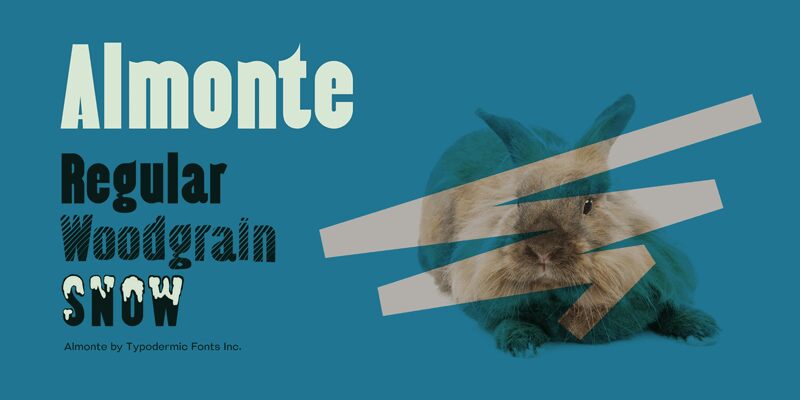
Almonte Snow, a captivating display font crafted by Typodermic Fonts, exudes a striking boldness and undeniable presence. This condensed, decorative typeface embodies a visually arresting fusion of sharp angles and organic fluidity, creating a sense of raw, untamed power. The stark black-and-white contrast amplifies its dramatic flair, lending itself to bold, attention-grabbing designs.
Almonte Snow's unique aesthetic makes it a versatile choice for a wide range of creative applications, from steampunk-inspired projects to gritty, industrialized branding. Its robust, condensed structure lends itself particularly well to headlines, titling, and impactful typographic compositions, where its commanding presence can truly shine.
Almonte is available in standard, woodgrain, and snow finishes. Some Latin-based European writing systems are supported, including the following languages. Afaan Oromo, Afar, Afrikaans, Albanian, Alsatian, Aymara, Basque, Bemba, Bikol, Breton, Cape Verdean, Creole, Catalan, Cebuano, Chamorro, Chavacano, Danish, Dawan, Dholuo, Dutch, English, Estonian, Faroese, Fijian, Filipino, Finnish, French, Frisian, Friulian, Galician, Genoese, German, Guadeloupean Creole, Haitian Creole, Hiligaynon, Icelandic, Ilocano, Indonesian, Irish, Italian, Jamaican, Kaqchikel, Kikongo, Kinyarwanda, Kirundi, Lombard, Low Saxon, Luxembourgish, Makhuwa, Malay, Ndebele, Neapolitan, Norwegian, Novial, Occitan, Papiamento, Piedmontese, Portuguese, Quechua, Rarotongan, Romansh, Sango, Saramaccan, Sardinian, Scottish Gaelic, Shona, Sicilian, Silesian, Slovak, Slovenian, Somali, Sotho, Spanish, Swahili, Swazi, Swedish, Tagalog, Tetum, Tshiluba, Tsonga, Tswana, Tumbuka, Uzbek (Latin), Venetian, Vro, Walloon, Waray-Waray, Wayuu, Xhosa, Yapese, Zapotec Zulu and Zuni.